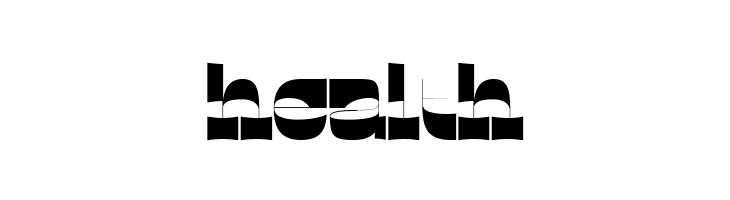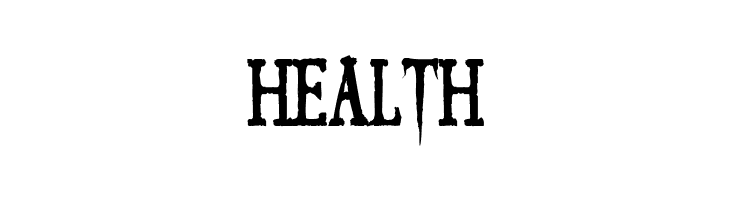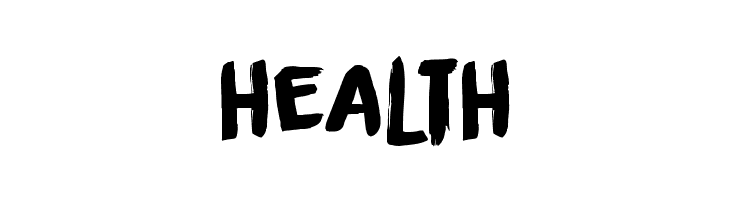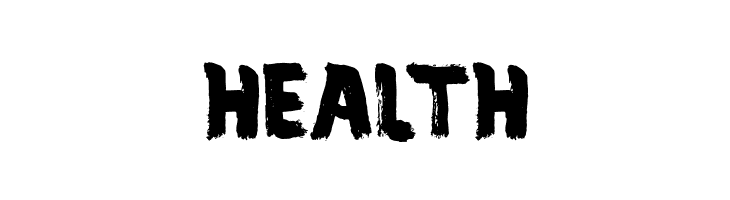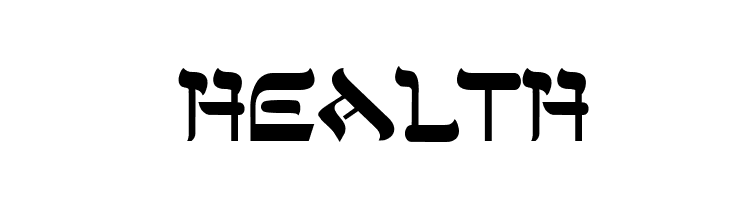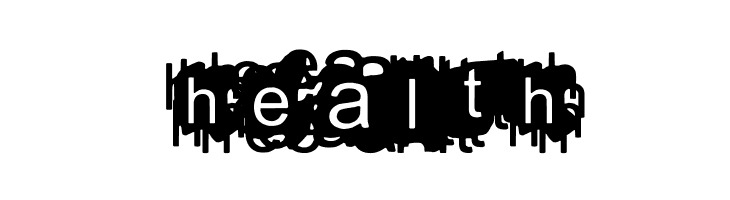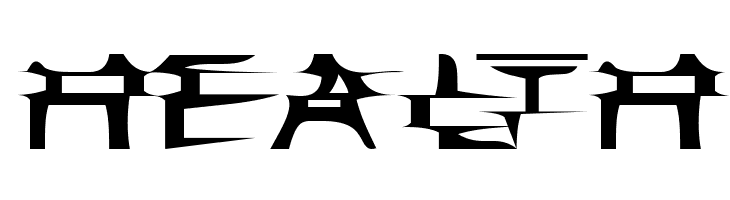
A bold, distressed font with a vintage, hand-drawn appearance.
A bold, angular font with a modern yet traditional aesthetic, ideal for impactful designs.
A chaotic, overlapping font with heavily obscured characters.
A fragmented, glitch-style font with sharp, angular cuts and overlapping segments.
A decorative font featuring unique skull designs for each character.
An abstract, waveform-inspired font with a unique, artistic design.
A bold, futuristic font with a 3D effect and geometric shapes.
A bold, dripping paint-style font with a dynamic and artistic flair.
A decorative and artistic font with intricate patterns and whimsical designs.
A bold, humorous font with exaggerated anatomical shapes and playful design.
A dramatic, dripping font with a horror-themed aesthetic.
A bold, geometric font with a digital, pixelated style.
A thorny, jagged font with a dark, edgy aesthetic.
A pixelated, blocky font with a retro digital style.
An abstract, barcode-like design with fragmented characters, ideal for tech or avant-garde themes.
A geometric, condensed font with a retro digital aesthetic.
A bold and playful set of erotic symbols with a modern aesthetic.